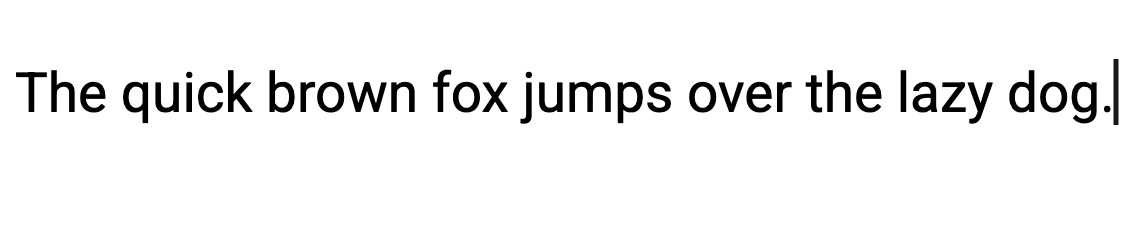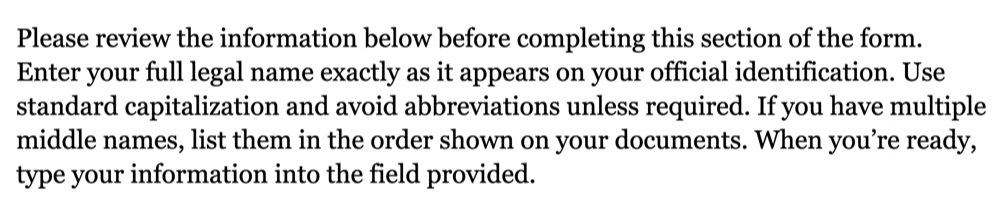
12 best fonts for forms: Clean, accessible fonts for every industry
Selecting the best font for forms that you create, publish, and distribute matters more than many people may realize. In fact, your choice of typeface can literally determine how quickly and comfortably another person fills out your form.
Form completion rate and overall user experience (UX) are both directly impacted by form design, particularly font selection. Studies show that typography (i.e., font family, spacing, and letter shape) affects reading speed, ability to parse information, and even level of comfort. A form that uses a poorly chosen font can introduce friction, lead to misreading information, and even increase form abandonment.
There’s no single font that outperforms all others in every possible situation. But you can find safe, versatile choices that perform reliably across many industries and use cases. In this article, we’ll explore 12 “safer bet” fonts with clean, simple visual forms and readable spacing, as well as the key to choosing a font that works for you, no matter what kind of form you’re creating.
What makes a good font for forms?
Choosing the best font for forms really boils down to how quickly and accurately your users can read, understand, and complete each field. Whether you’re building medical intake forms, legal PDFs, or Google Forms-based surveys, the same core criteria apply.
1. Legibility at small sizes: Most forms rely on text that’s 10–12 point (pt) in size. An ideal font maintains clarity at that size with a balanced stroke width, steady spacing, and open counters – that is, the partially enclosed interior spaces in letters such as a, c, e, and s, among others.
2. Simple, functional letterforms: Decorative, handwritten, and overly stylized typefaces slow down your reader and may increase the risk of errors. Simple sans serif and clean serif font choices usually work better than script and novelty fonts for the task-based reading that forms require.
3. Wide availability: Forms must render consistently across multiple kinds of devices, browsers, and PDF software. Prioritize system fonts to prevent unfortunate layout changes, clipped characters, or inconsistencies in font substitutions.
4. Accessibility and contrast: The font you choose for your form should be readable under Web Content Accessibility Guidelines (WCAG) as well as the Americans with Disabilities Act (ADA) accessibility requirements. Fonts with generous x-heights and clear shapes hold up better in both high-contrast and low-contrast environments.
5. Tone that fits the context: Clean serif fonts like Georgia and Merriweather often convey more authority, while neutral sans-serif fonts like Roboto and Open Sans communicate friendliness and efficiency. A font that aligns with the tone of the form’s content improves its perceived credibility.
6. Clear, distinct characters: For too many form fonts, the characters I/l/1 all look nearly identical. This can cause transcription errors — a serious risk, especially for medical, legal, and financial forms. Many fonts intentionally differentiate these shapes, making them better choices for forms.
7. Professional, trust-building appearance: Generally, it’s better to select a polished, neutral typeface for your forms. These kinds of fonts help increase a sense of reliability and can reduce user hesitation. By contrast, fonts with a playful appearance can come across as “gimmicky” on a form, undermining user confidence.
8. Neurodiversity- and dyslexia-friendly: Finally, wherever possible, it’s smart to choose fonts with a steady rhythm, generous spacing between characters, and unambiguous character forms. These fonts help neurodiverse users maintain focus on your form and its fields.
How context changes font readability
Keep in mind that what makes a font a good choice in one use case may make it inappropriate or a weak choice in another. For example, consider the ubiquitous Roboto font. When used as a larger, bolder heading on a form, it presents legibly with uniform strokes and relatively tall x-height of characters:
Roboto font used for a large form heading titled “Personal and Contact Information
But when it’s used for longer instructional sections, it can look a bit mechanical and impersonal:
Roboto font shown in longer instructional text with a sample sentence
Conversely, Georgia performs quite well in extended text sections:
Georgia font used in a long instructional paragraph for improved readability
But when used in smaller sizes for field labels, it can be tough to read:
Georgia font displayed in small form field labels like name and address
It all depends on context.
Best fonts for common use cases
The right font for your form must perform across different platforms. A font that looks crisp on macOS (which uses subpixel anti-aliasing and tends to render type more softly) may appear heavier or sharper on Windows’ ClearType rendering. Likewise, even the best Google Fonts can behave differently from system fonts packaged with Windows, macOS, or common productivity tools.
This article is for web designers, UX professionals, form builders, and anyone who wants to choose the best font for improving the readability, accessibility, and professional appearance of digital or printed forms across business, medical, legal, and general use cases.